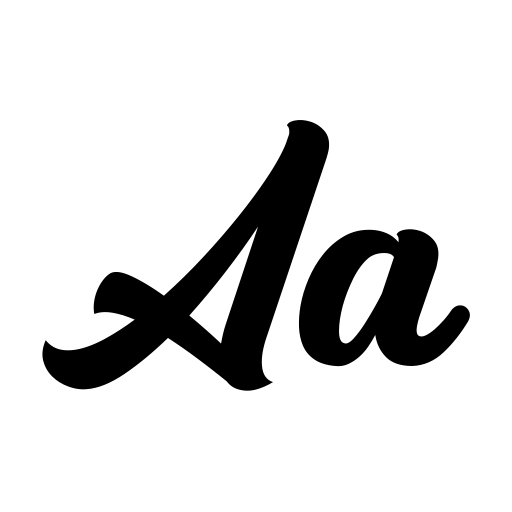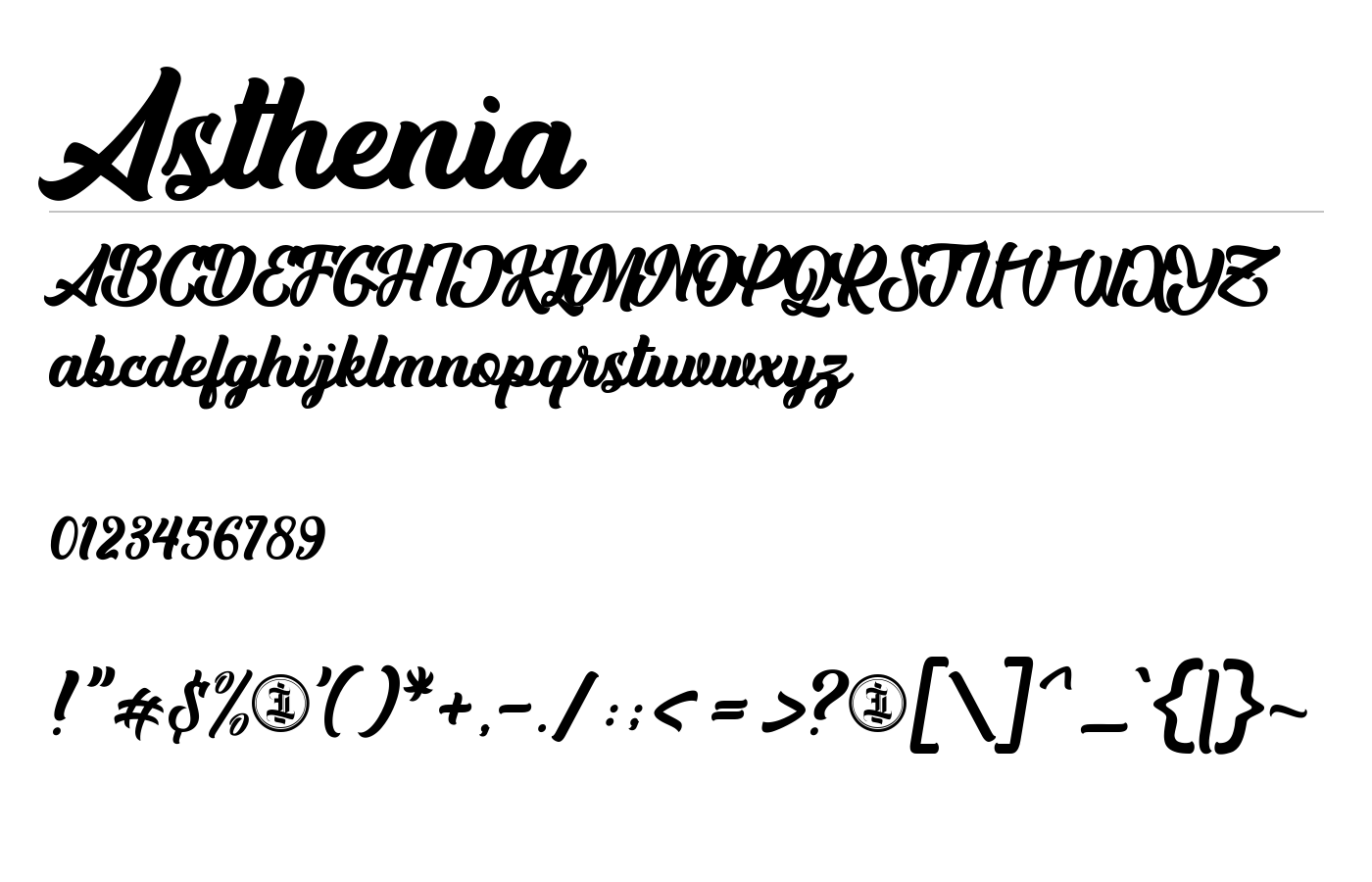
Asthenia is a bold script font with a lively, flowing style that combines smooth curves and a slight slant for a dynamic, handwritten feel. Its thick strokes and rounded terminals give it a friendly, approachable personality, making it an excellent choice for branding, logos, and creative headlines where a touch of elegance and charisma is desired. This font works well in projects that seek a vintage-inspired yet modern appeal, adding warmth and character to invitations, packaging, and fashion-related designs.
Asthenia Font
About Asthenia Font
| Font family | Asthenia Font |
| Designer | Ilham Wahyu |